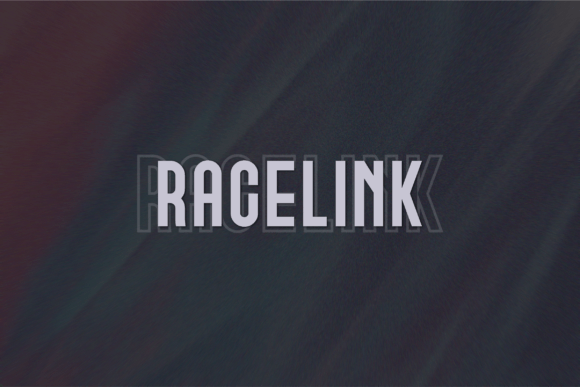
Welcome to the world of Racelink, an exceptional all-caps sans serif font family designed to captivate and empower your creative endeavors. As a creation of Huntype, Racelink emerges as a versatile font that seamlessly adapts to a myriad of contexts, ensuring its suitability for diverse design projects. Step into the realm of boundless creativity with Racelink!
Within the Racelink font family, you'll discover a spectrum of weights, ranging from the delicate Hairline to the authoritative Black, each possessing its own distinctive charm. Whether you seek a font that exudes elegance or one that commands attention, Racelink offers the perfect choice for your vision.
Experience the allure of Racelink's smooth and clean lines, masterfully crafted to evoke a sense of sophistication and modernity. Its subtle contrast adds depth and dimension to your designs, effortlessly elevating them to new heights of visual appeal.
With Racelink as your font of choice, unlock a world of possibilities for logos, branding, and web headings. Its versatility extends to a vast array of projects, enabling you to effortlessly craft designs that resonate with your audience and leave a lasting impression.
As the Best Font For Quotes 2018, Racelink has garnered accolades for its ability to transform ordinary words into captivating statements. Its clean lines and distinct character lend themselves perfectly to capturing the essence of memorable quotes, ensuring they command attention and leave an indelible mark on the reader's mind.
Immerse yourself in the world of Racelink, a font family that embodies versatility, style, and impact. Experience the seamless fusion of form and function as you create designs that captivate, inspire, and leave a lasting legacy. Embrace the power of Racelink and unleash your creative potential today!